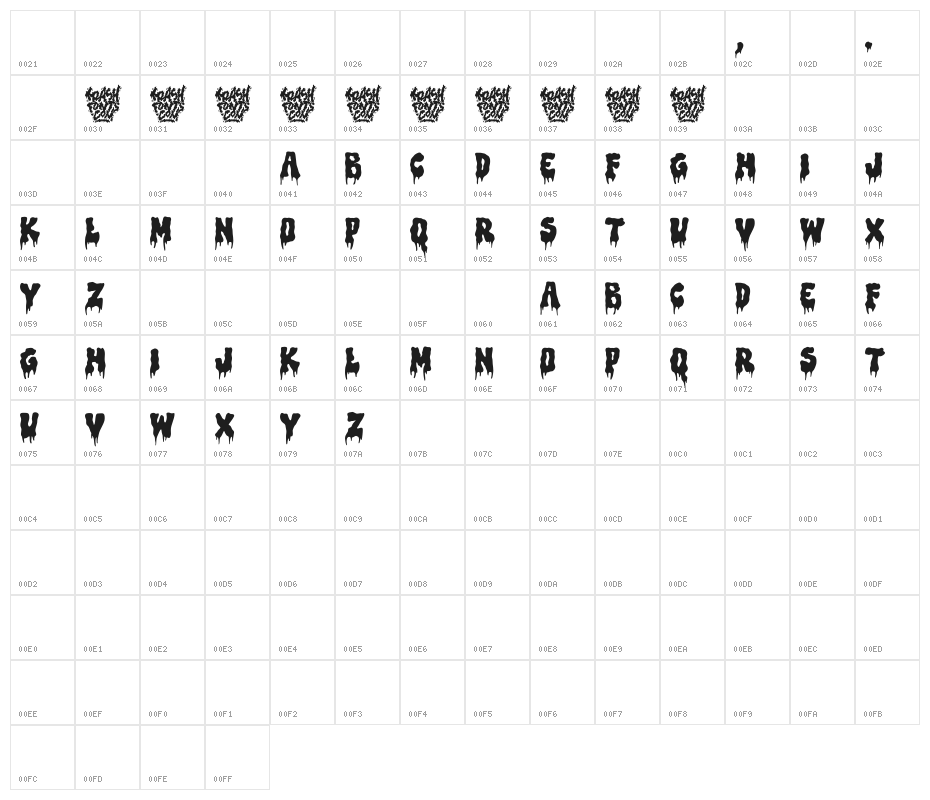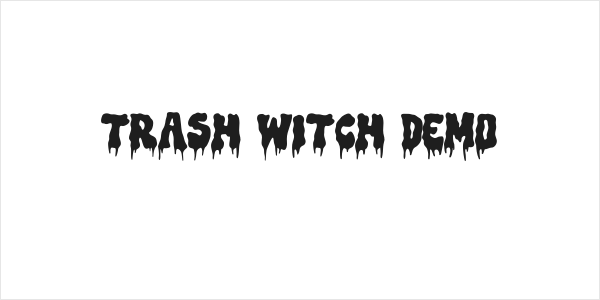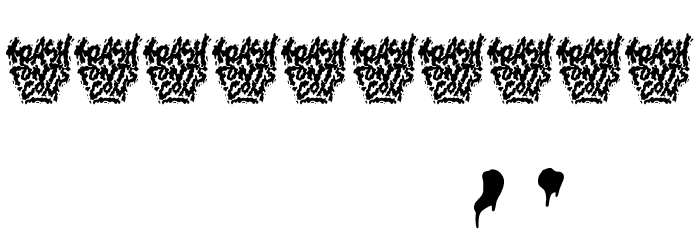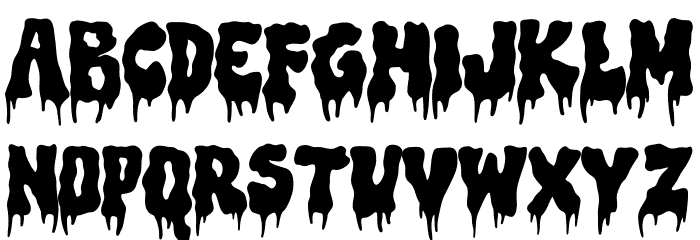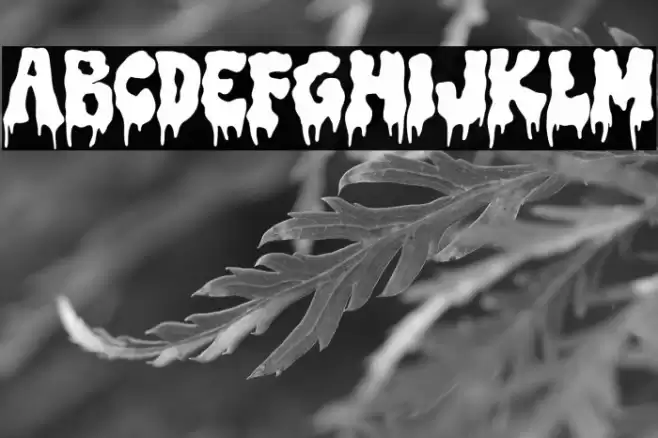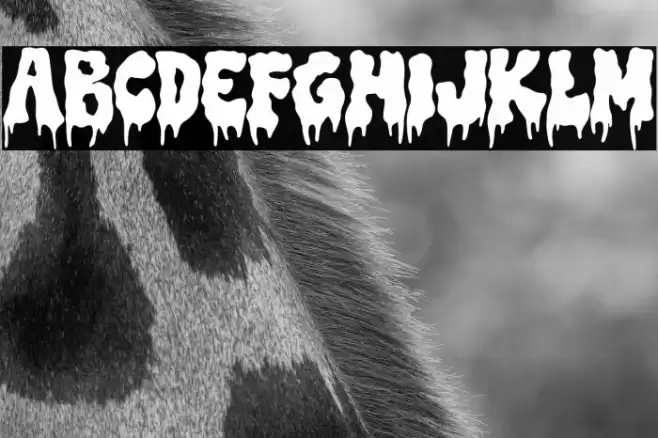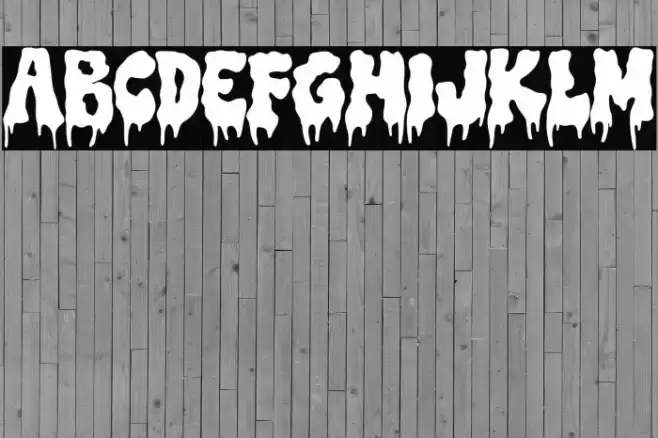
Trash Witch DEMO Font
| Vorgeschlagene Projekte | Ideal for Halloween posters, horror movie titles, themed event invitations, and spooky merchandise designs. |